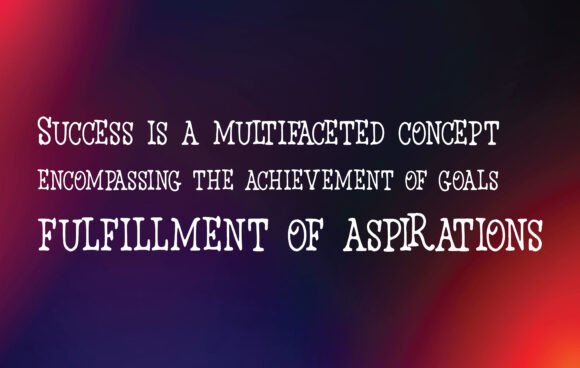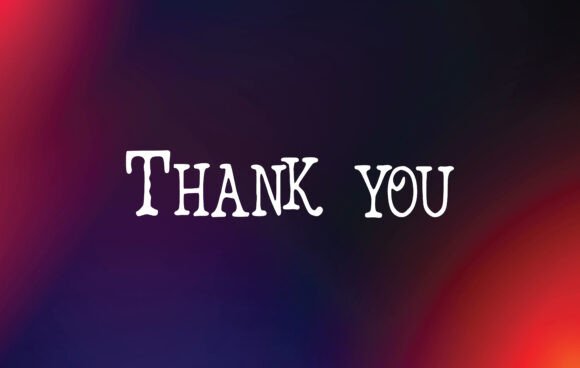
Discover the Elegance of Damon Font: Elevate Your Designs with a Lovely Serif Font
In the world of typography, fonts play a crucial role in conveying messages, expressing creativity, and capturing the audience’s attention. For designers, crafters, and anyone looking to add a touch of sophistication to their projects, the Damon Font is an excellent choice. This lovely and beautiful serif font has the potential to take your creative ideas to the highest level, making it an ideal selection for creating eye-catching logos, branding, and quotes.
What Makes Damon Font Stand Out?
Damon Font is a serif font that exudes elegance and refinement. Its classic design, characterized by small lines or flourishes at the ends of the letters, gives it a distinctive look that sets it apart from sans-serif fonts. The serifs on Damon Font are carefully crafted to add a touch of sophistication and luxury to any design, making it perfect for projects that require a high level of professionalism.
Key Features of Damon Font
- Unique Letterforms: Damon Font features unique and stylish letterforms that are designed to capture the audience’s attention. Each letter is carefully crafted to ensure that your designs stand out from the crowd.
- High Versatility: This font is highly versatile and can be used for a wide range of projects, from logos and branding to quotes and creative writing.
- Elegant Serifs: The serifs on Damon Font are elegant and refined, adding a touch of sophistication to any design.
- Easy to Read: Despite its elegant design, Damon Font is easy to read, making it perfect for body text and quotes.
Uses of Damon Font
Damon Font is a versatile font that can be used for a wide range of projects, including:
- Logo Design: Create stunning logos that capture the essence of your brand with Damon Font.
- Branding: Use Damon Font to create a consistent visual identity for your brand across all marketing materials.
- Quotes: Add a touch of elegance to your quotes with Damon Font, making them perfect for social media, blogs, and websites.
- Packaging Design: Use Damon Font to create eye-catching packaging designs that stand out on store shelves.
Tips for Using Damon Font Effectively
To get the most out of Damon Font, here are some tips to keep in mind:
- Pair with Sans-Serif Fonts: Pair Damon Font with sans-serif fonts to create a striking contrast that adds visual interest to your designs.
- Experiment with Font Sizes: Experiment with different font sizes to create a hierarchy of information and add emphasis to key messages.
- Use for Headings and Titles: Use Damon Font for headings and titles to add a touch of elegance and sophistication to your designs.